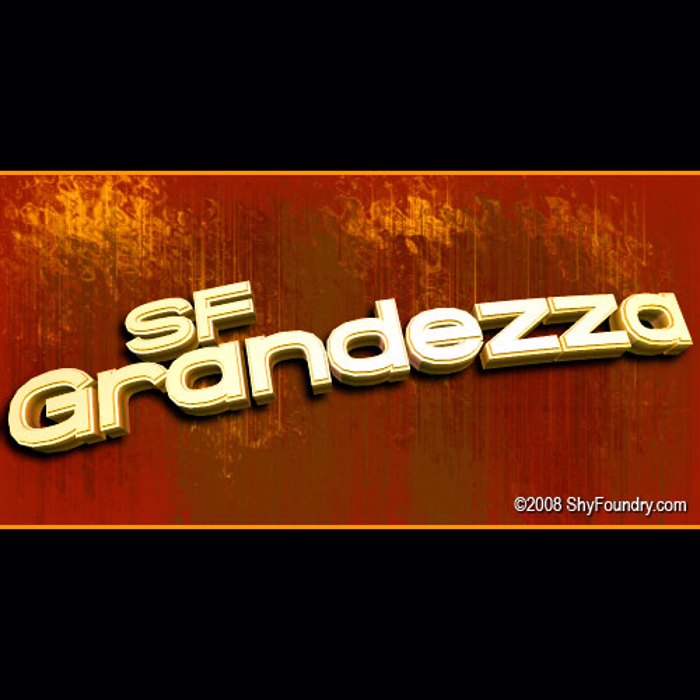
SF Grandezza Font
An elongated sans serif, SF Grandezza contains lowercase and uppercase letters, numbers, punctuation, and accented characters
Beautiful form and easy to read